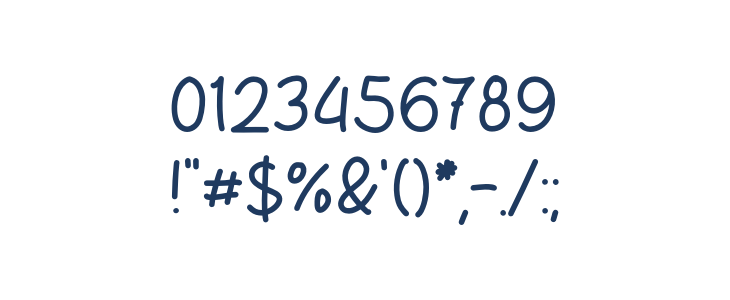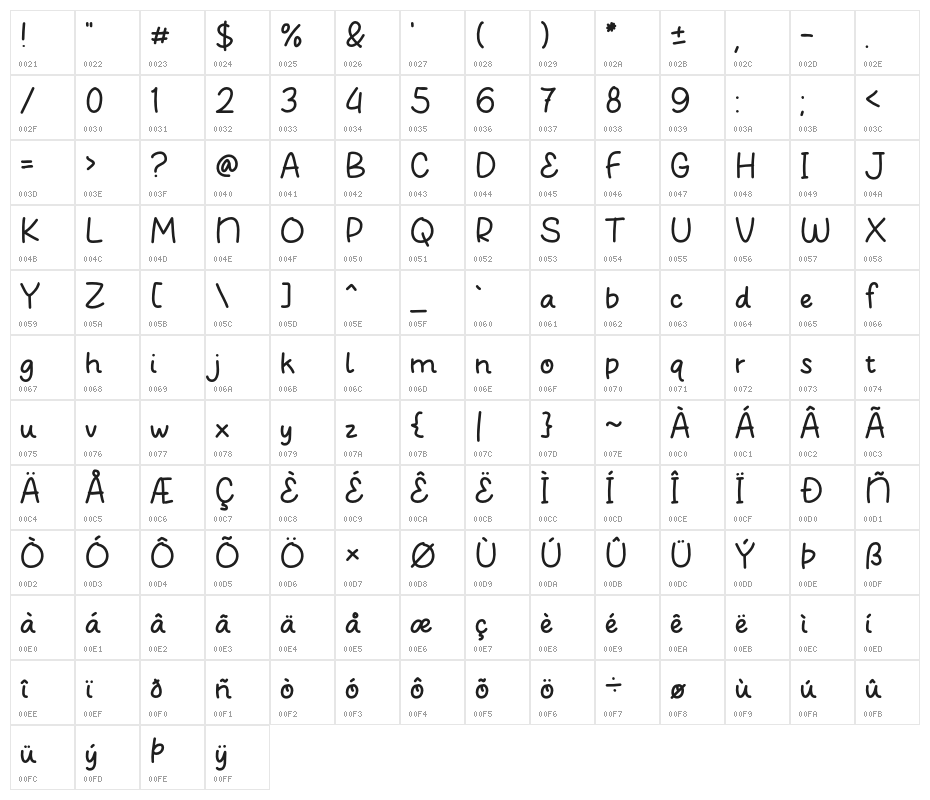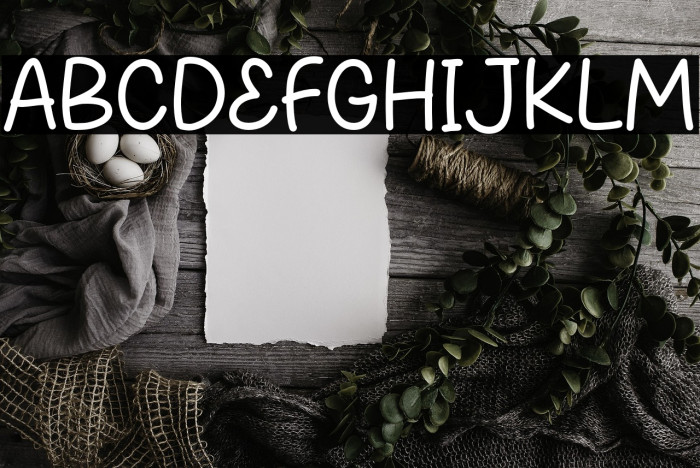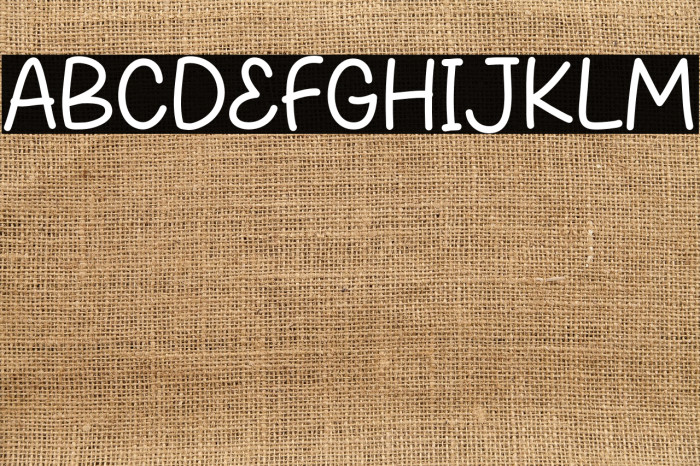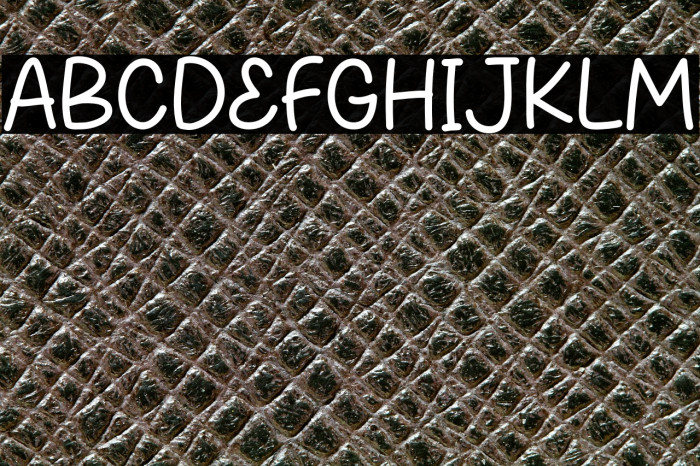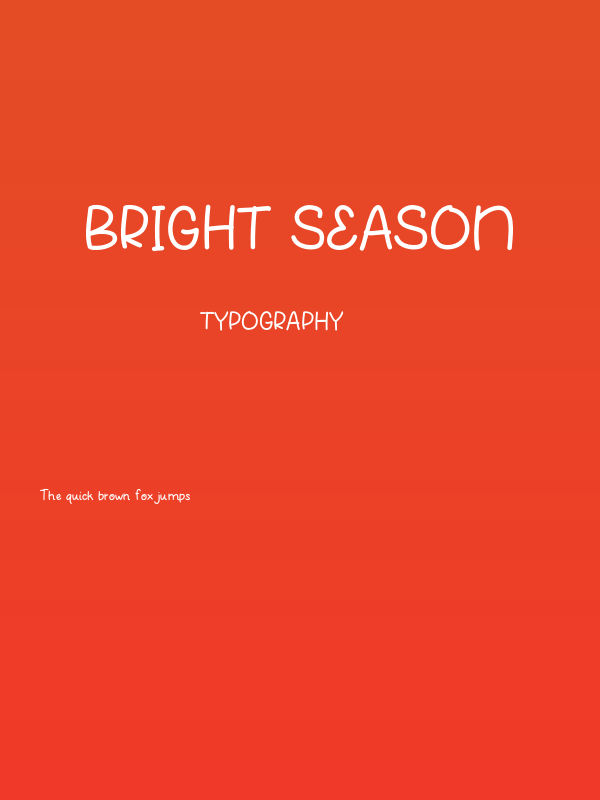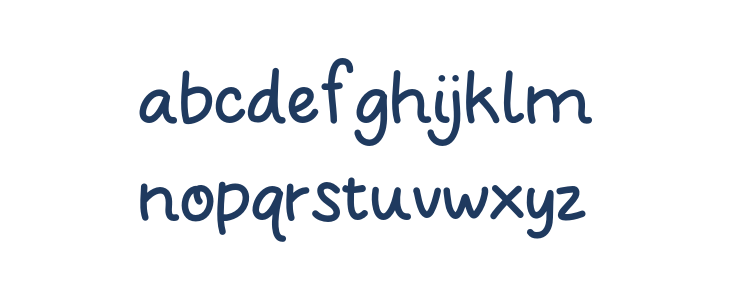
Bright Season Font
Bright Season Description
This font features a playful and casual handwritten style, characterized by its smooth, rounded edges and consistent stroke width. The letters are slightly tilted, adding a dynamic and informal feel. The uppercase and lowercase letters maintain a uniform height, enhancing readability while preserving a relaxed aesthetic. The numerals and special characters are crafted with the same playful touch, making them suitable for a variety of creative projects. Overall, this font exudes a friendly and approachable vibe, perfect for designs that aim to convey warmth and personality.
| Use Case | Logos, Headlines, Informal Text |
| Proposed Projects | Ideal for greeting cards, children's books, playful branding, and social media graphics. |